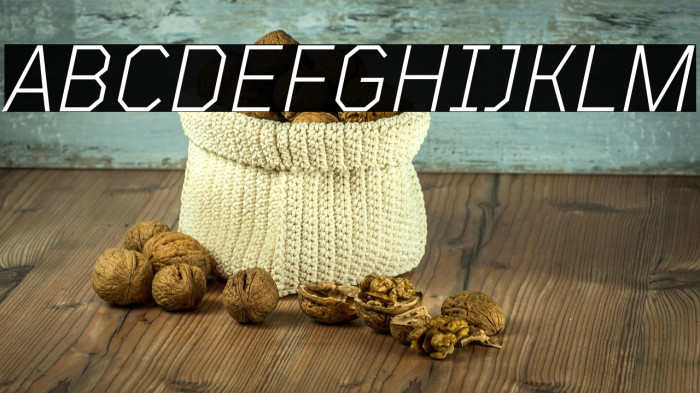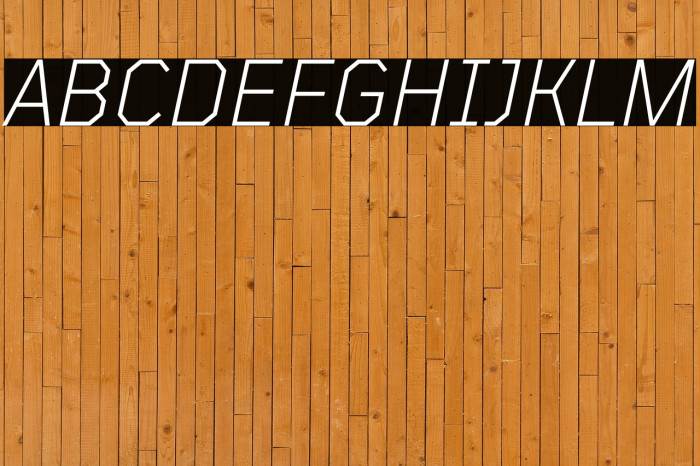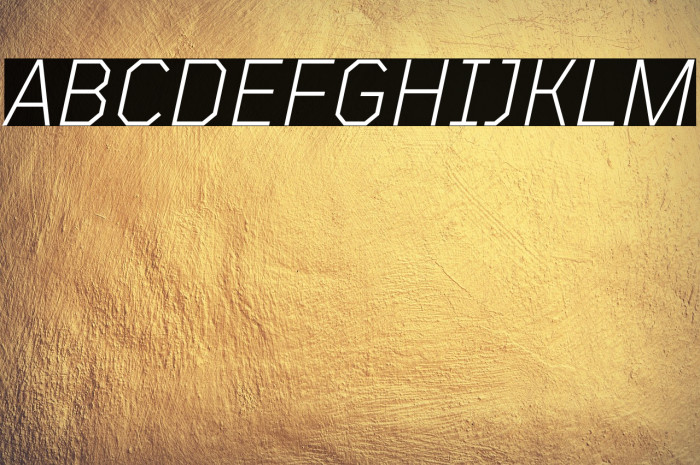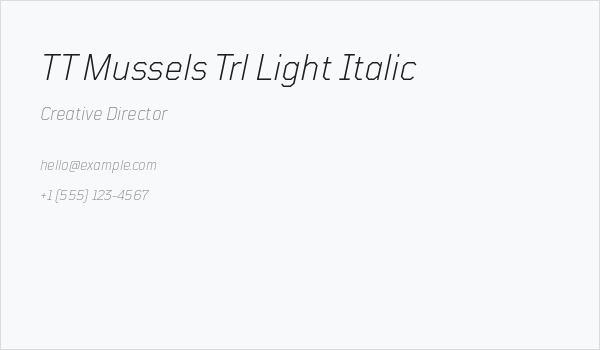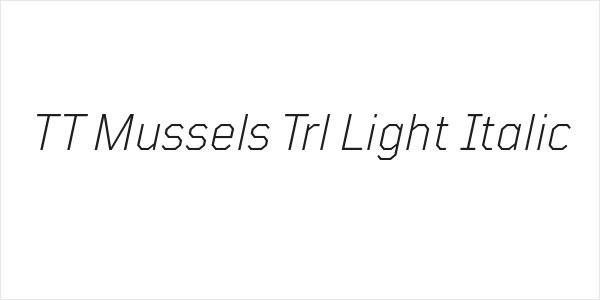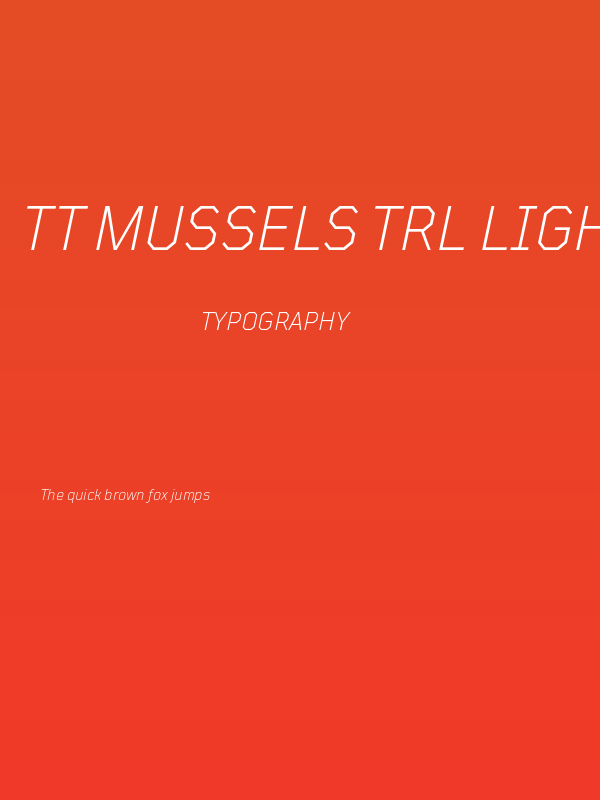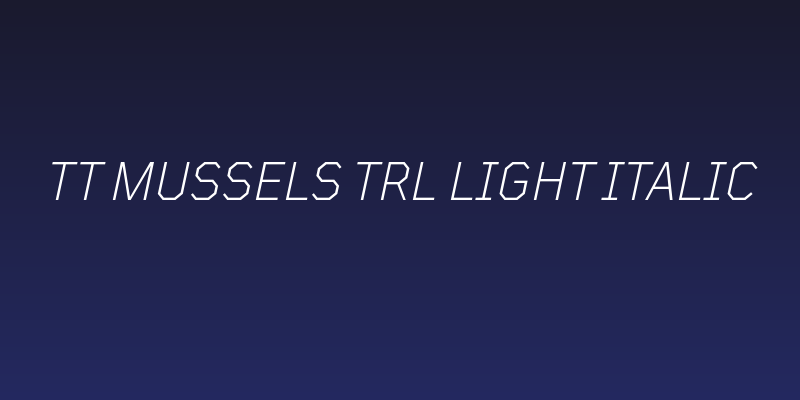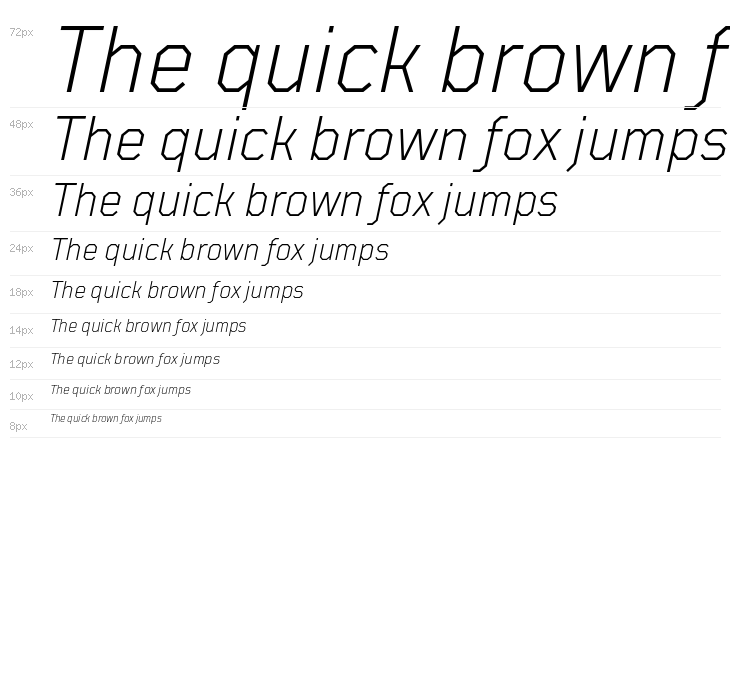
TT Mussels Trl Light Italic Font
TT Mussels Trl Light Italic Description
This font features a geometric and modern design with a light weight and italic style. The characters are constructed with clean, angular lines, giving it a technical and precise appearance. The uppercase and lowercase letters maintain a consistent slant, enhancing its italic nature. The numerals and special characters follow the same angular and geometric theme, providing a cohesive look across all glyphs. The overall design is sleek and contemporary, making it suitable for projects that require a modern and technical aesthetic.
| Use Case | Headlines, Logos, Digital Interfaces |
| Proposed Projects | Ideal for tech branding, modern websites, digital interfaces, and innovative product packaging. |